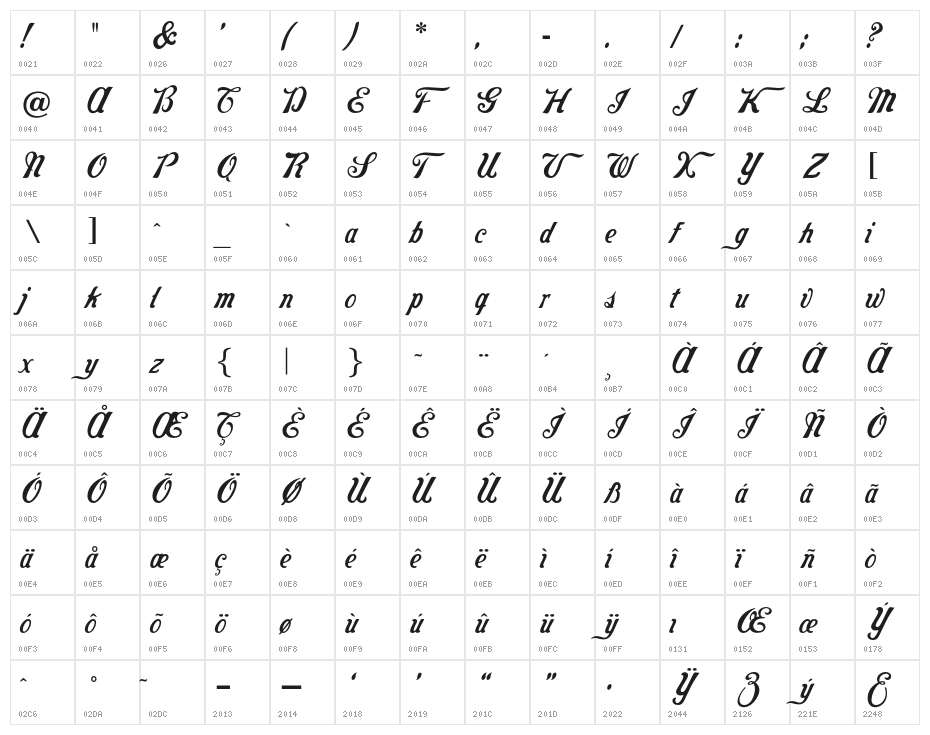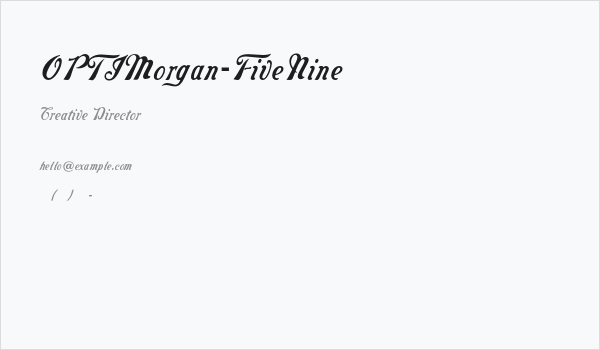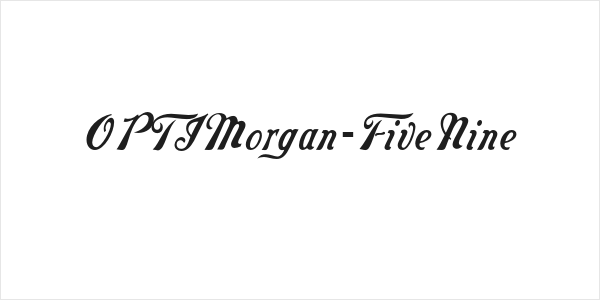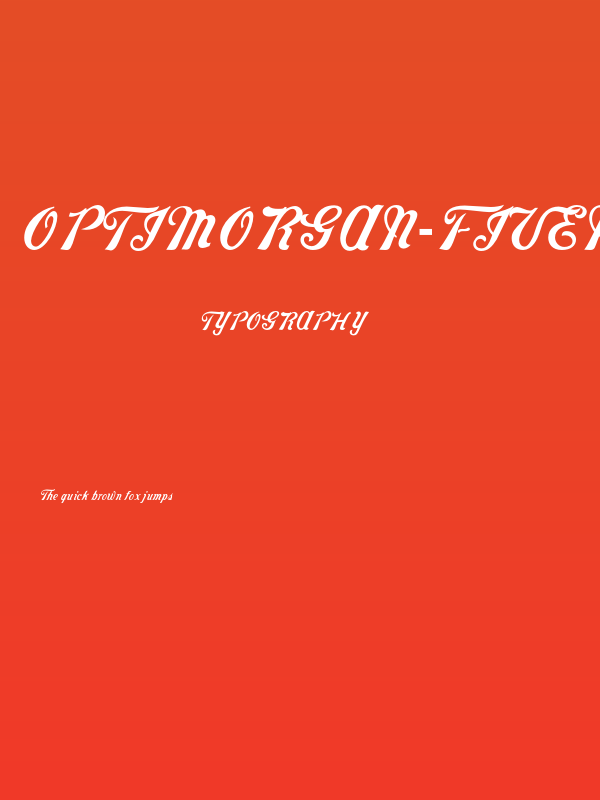
OPTIMorgan-FiveNine Font
OPTIMorgan-FiveNine Description
This font features a classic script style with elegant, flowing characters. The uppercase letters are adorned with subtle flourishes, giving them a sophisticated and ornamental appearance. The lowercase letters maintain a smooth, cursive flow, enhancing readability while preserving the decorative nature. The numerals and special characters are crafted with the same attention to detail, ensuring consistency across all glyphs. The overall design is reminiscent of traditional calligraphy, making it suitable for projects that require a touch of elegance and formality.
| Proposed Projects | Ideal for wedding invitations, formal event programs, elegant branding, and decorative signage. |